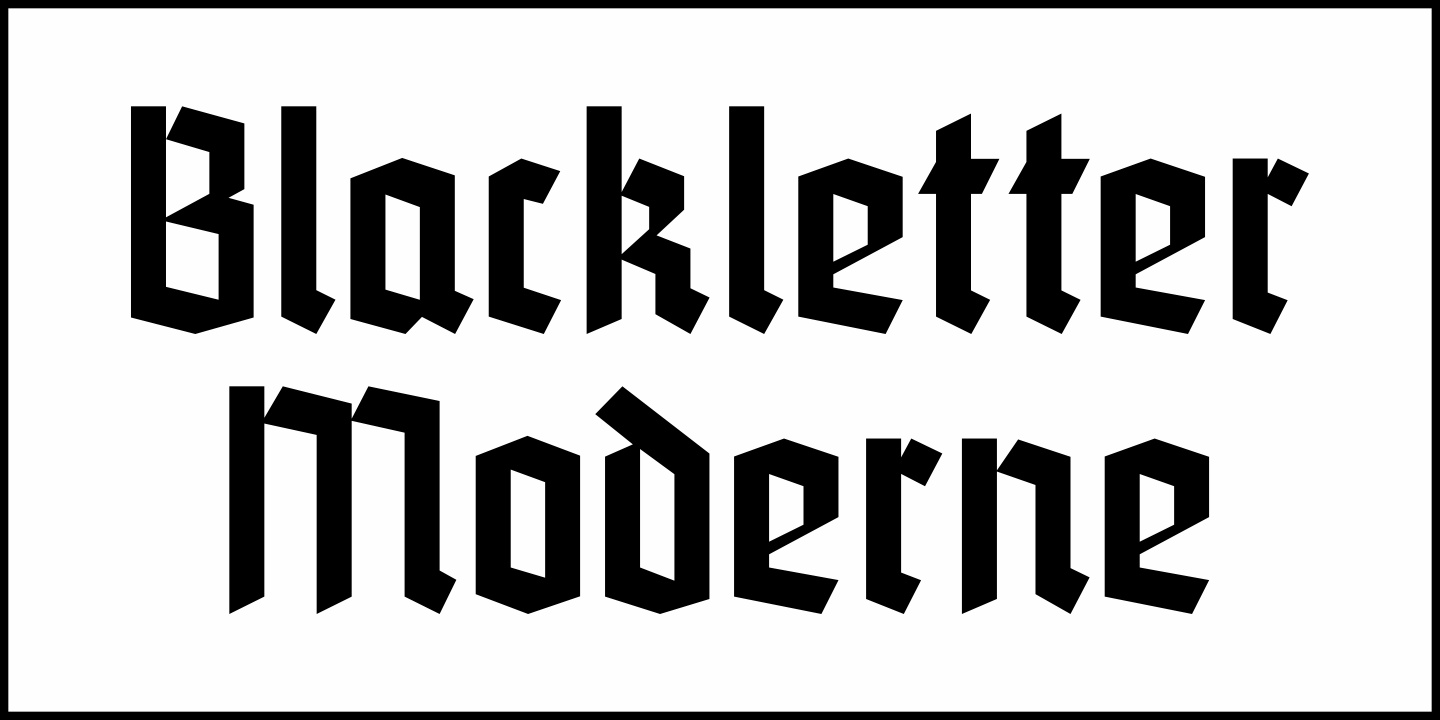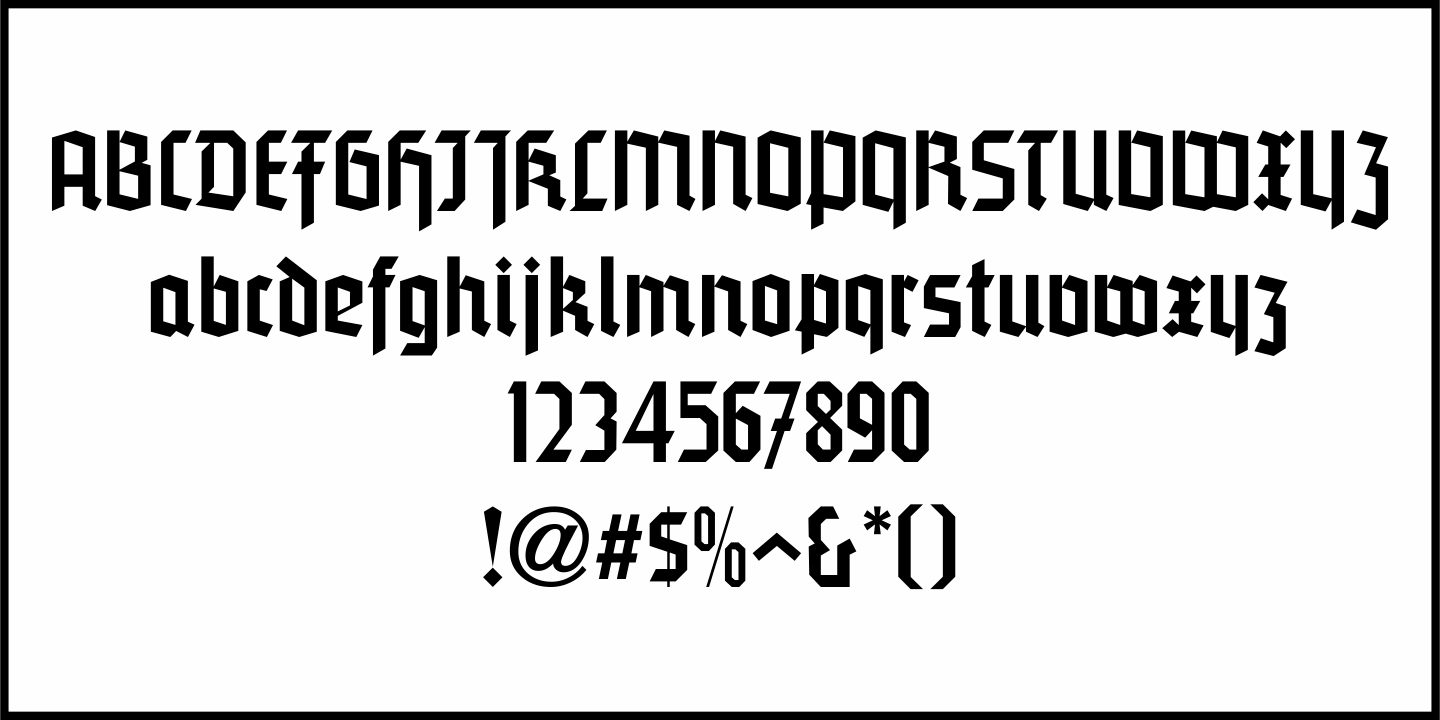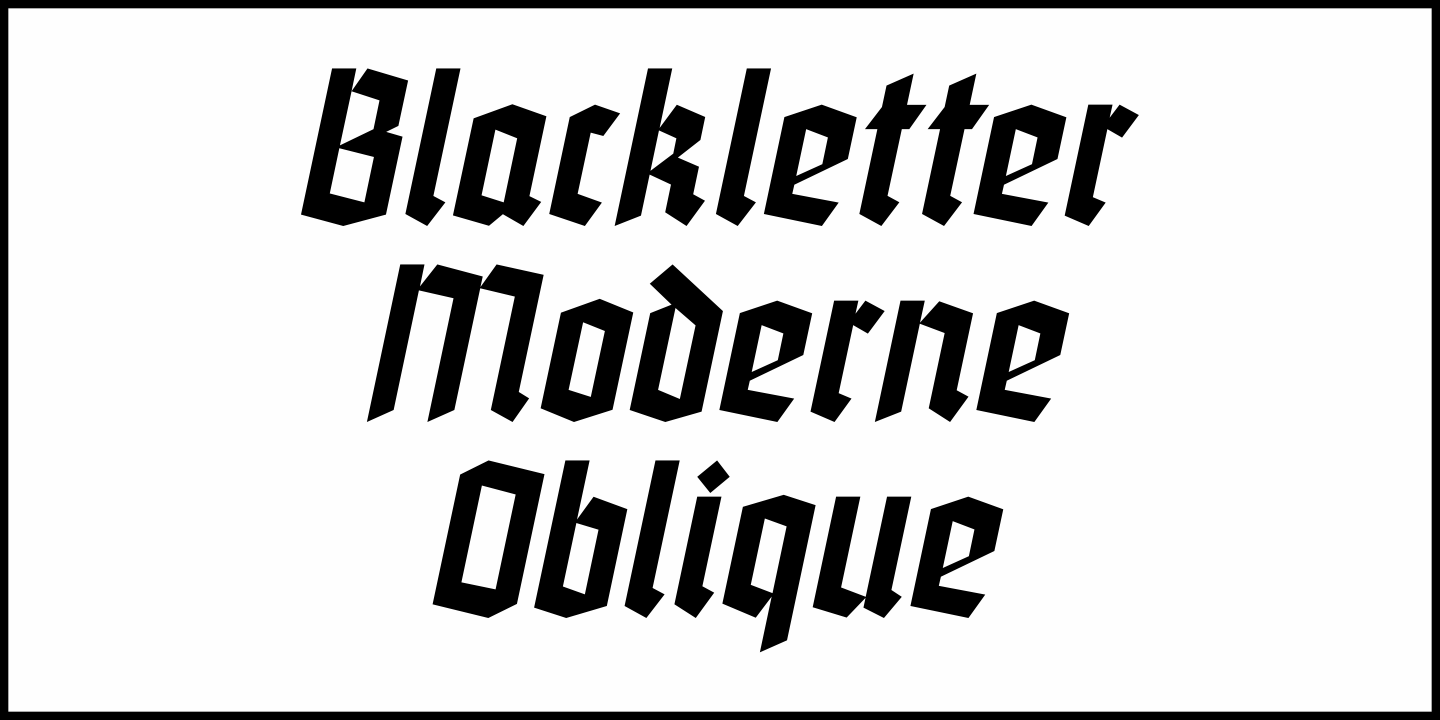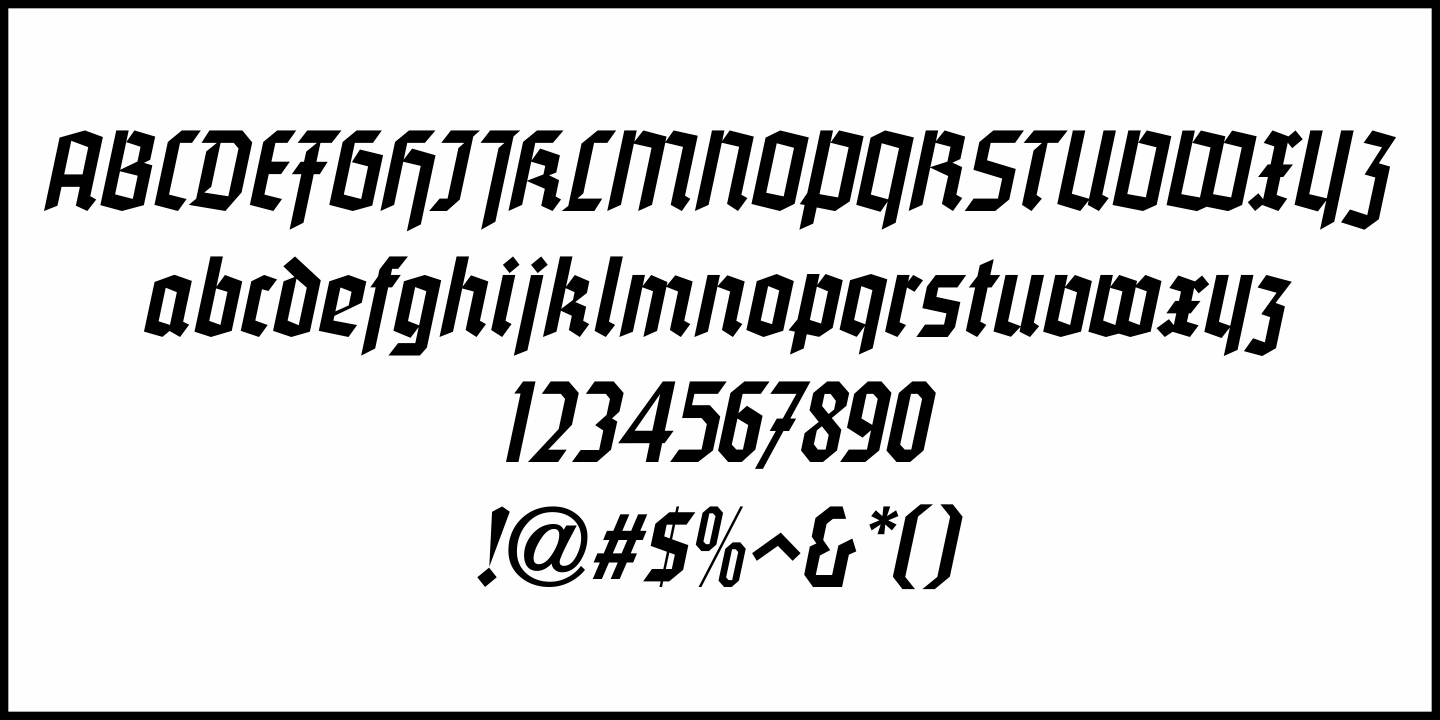
Blackletter Moderne
Blackletter Moderne JNL was inspired by the original 1935 pencil drafts for 'Deutsche Schrift” (German script); designed for the country's railway system – and is available in both regular and oblique versions.
Blackletter Moderne JNL Regular by Jeff Levine Fonts